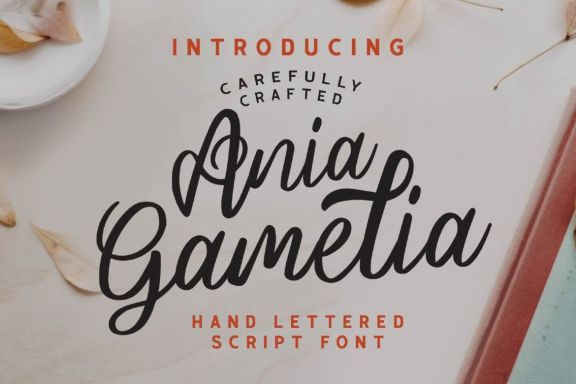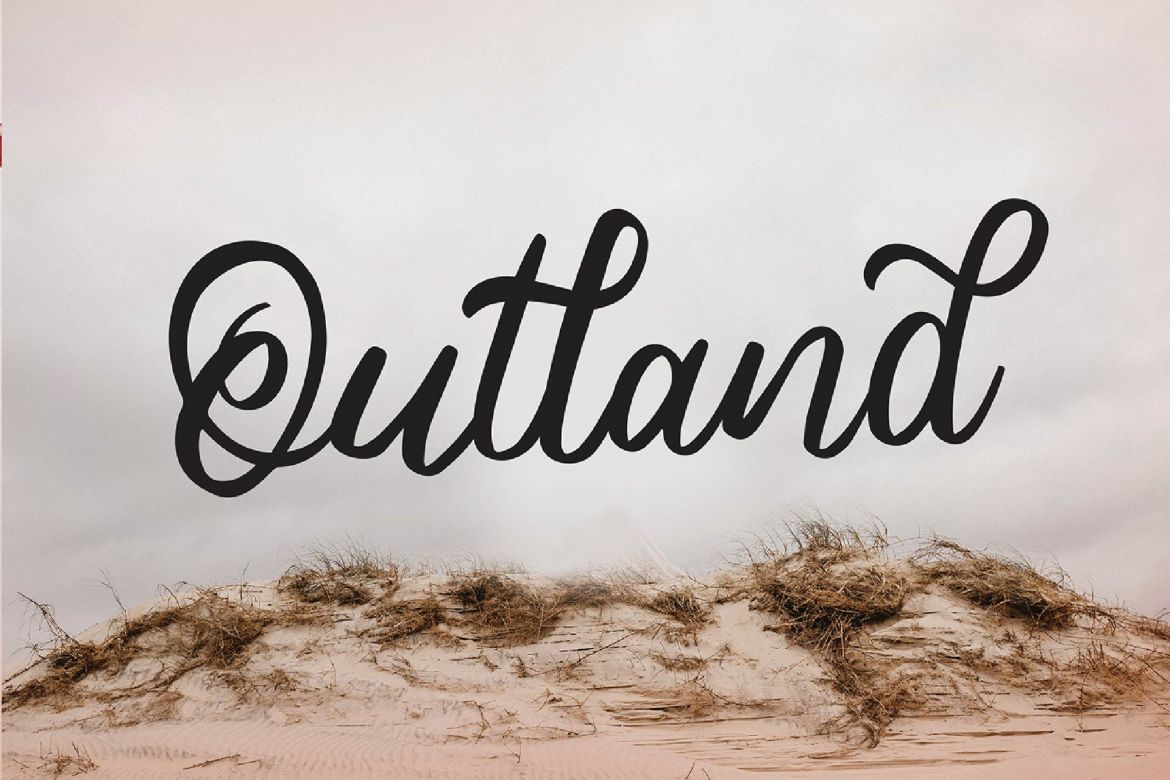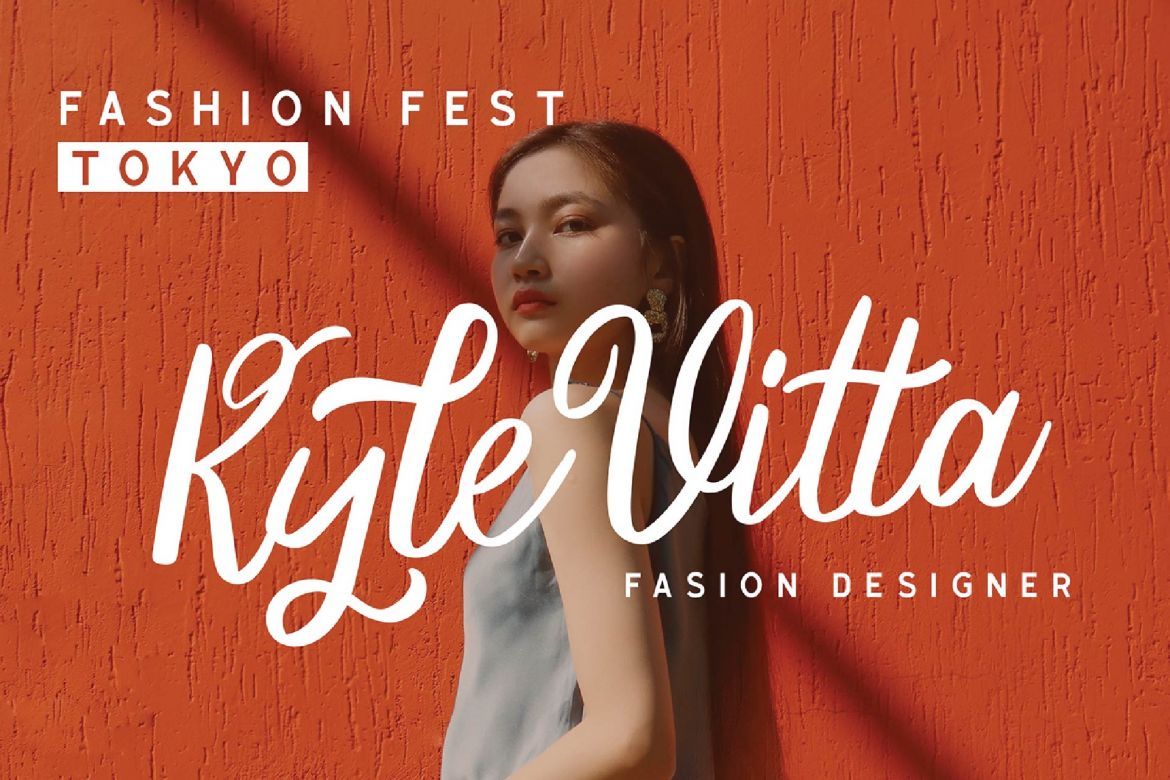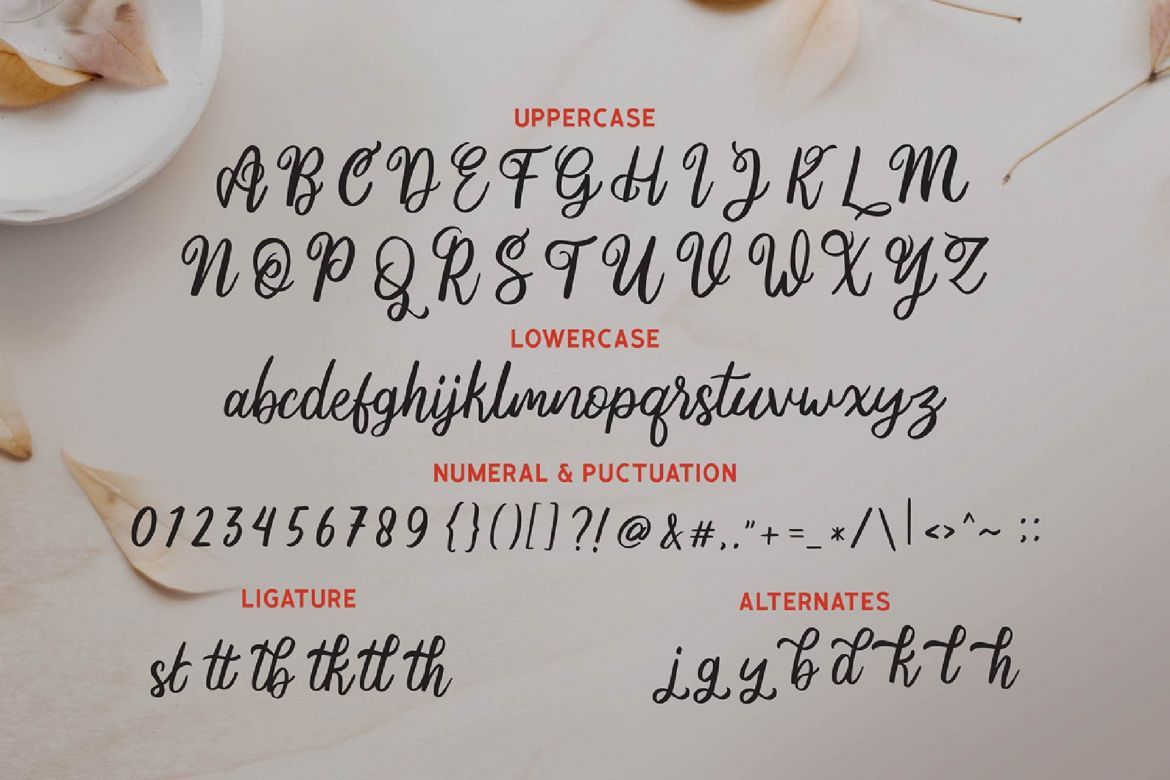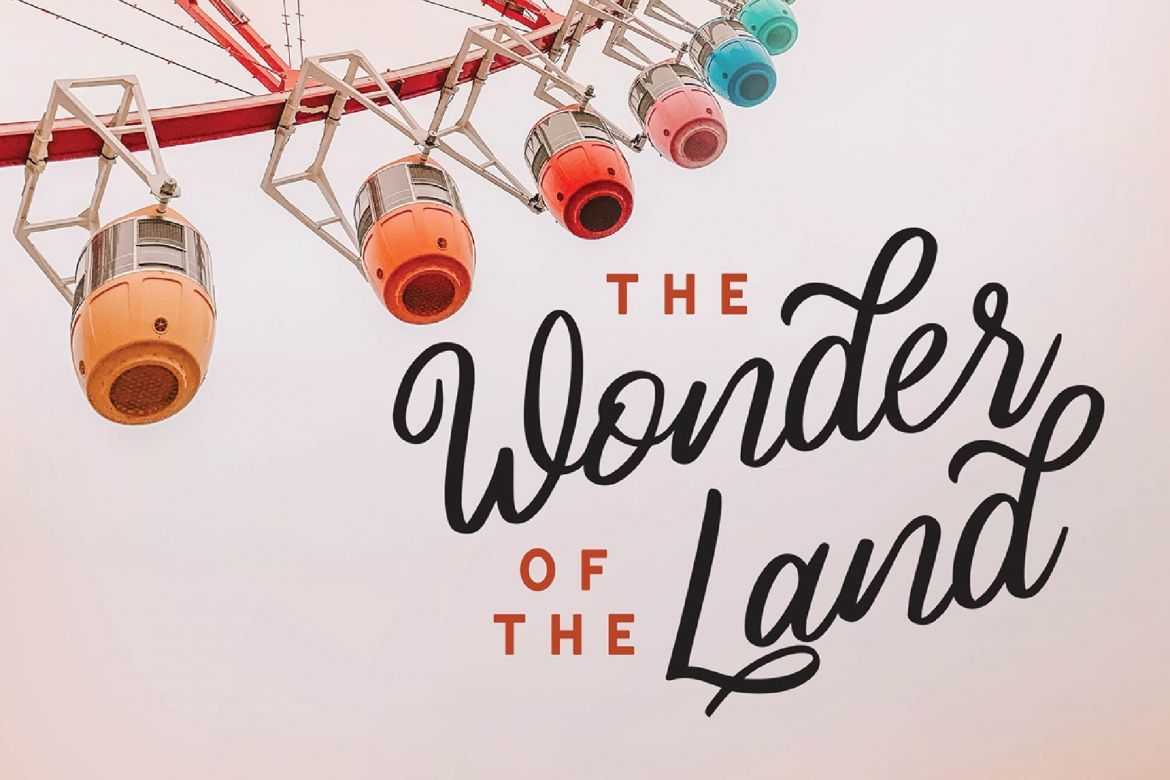
Ania Gamelia - Handlettering Script Font
Ania Gamelia - Handlettering Script Font with a calligraphy style, So beautiful on invitation like greeting cards, branding materials, business cards, quotes, posters, and more!
The alternative characters were divided into several features such as Stylistic Sets, Stylistic Alternates, Contextual Alternate, SWASH and Ligature.
• alternates and ligatures
• fonts include multilingual support